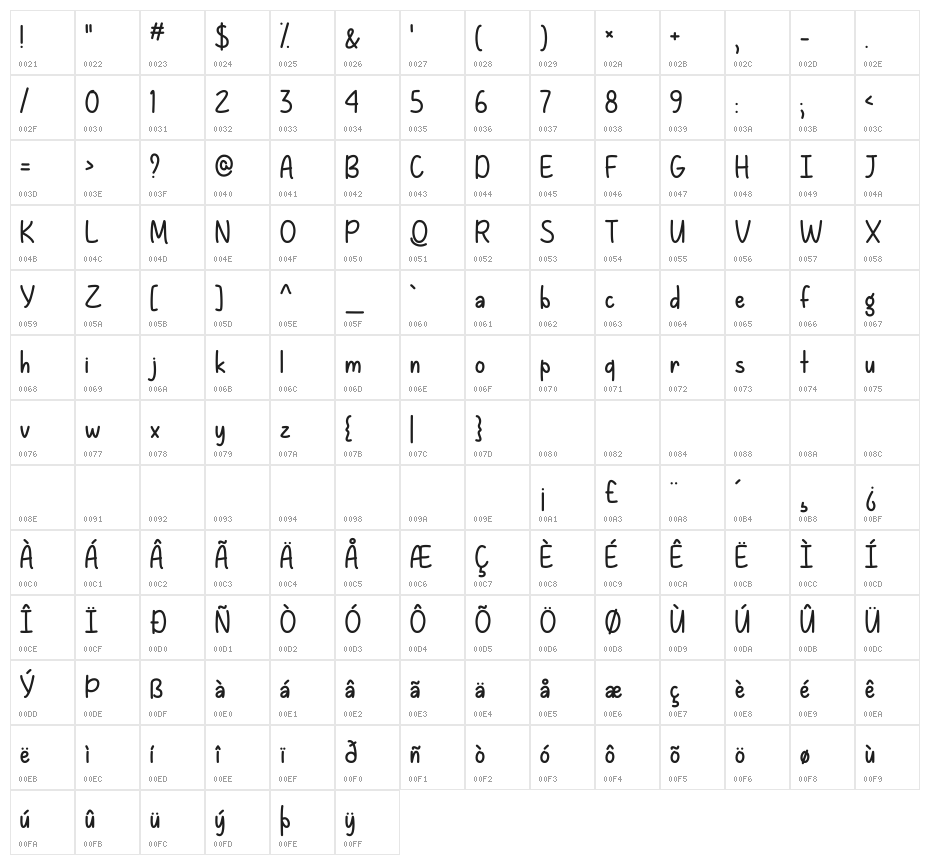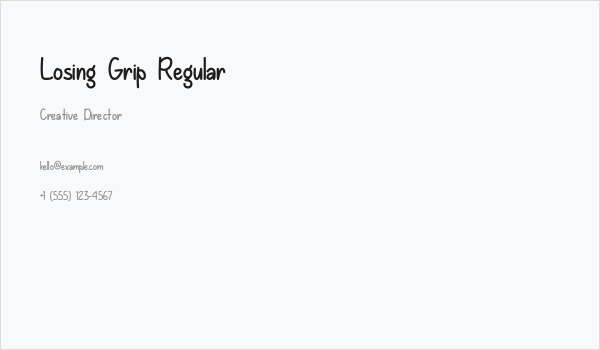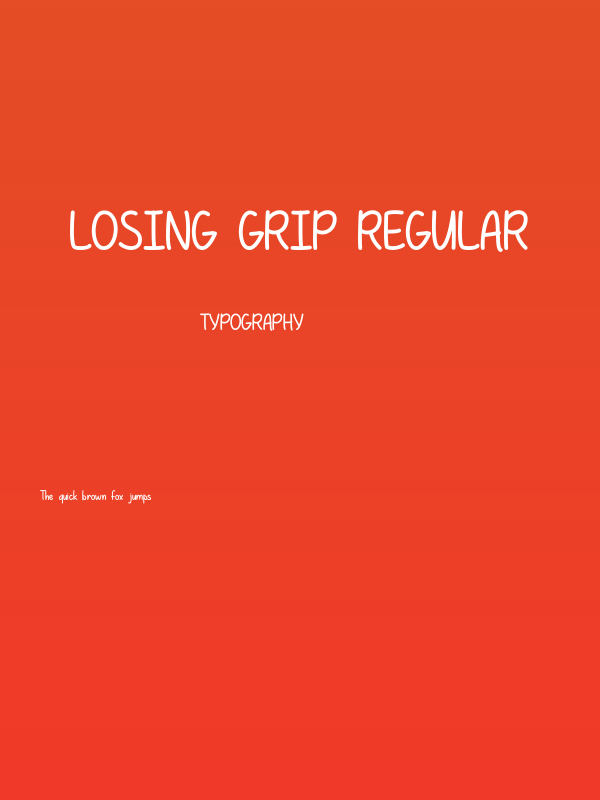
Losing Grip Regular Font
Losing Grip Regular Description
This playful and informal font features a handwritten style with smooth, rounded edges and a casual feel. The letters are slightly uneven, adding to its charm and approachability. It maintains a consistent stroke width throughout, giving it a uniform appearance despite its whimsical nature. The characters are well-spaced, ensuring readability while retaining a friendly and relaxed vibe. This font is versatile, suitable for projects that require a personal touch or a fun, lighthearted aesthetic. Its simplicity and clarity make it easy to read, while its unique style adds character and warmth.
| Use Case | Headlines, Informal text, Branding |
| Proposed Projects | Ideal for greeting cards, children's books, casual invitations, and playful branding. |